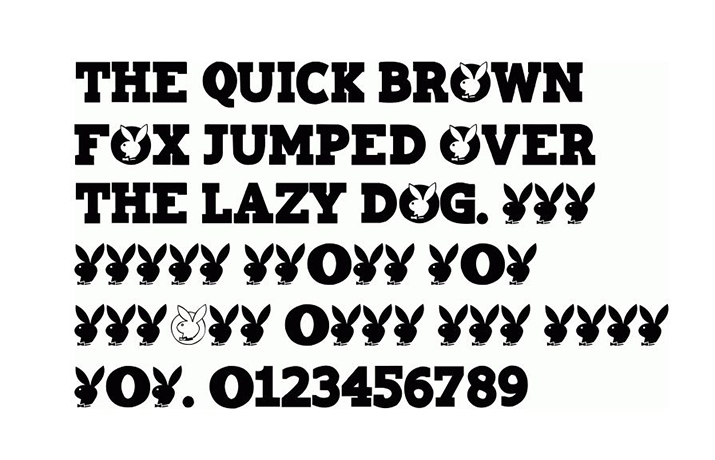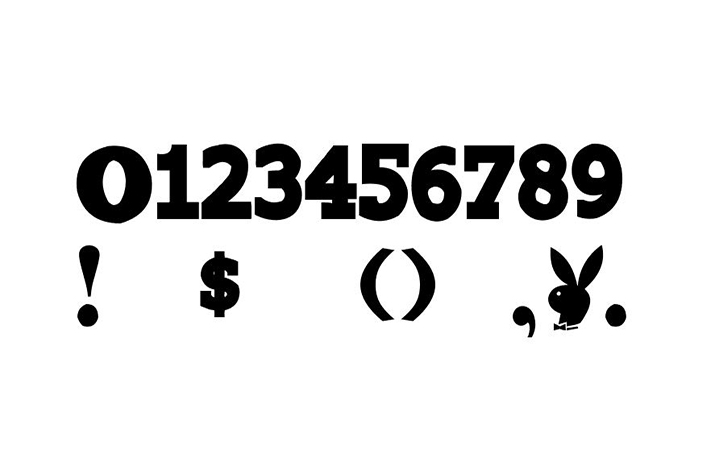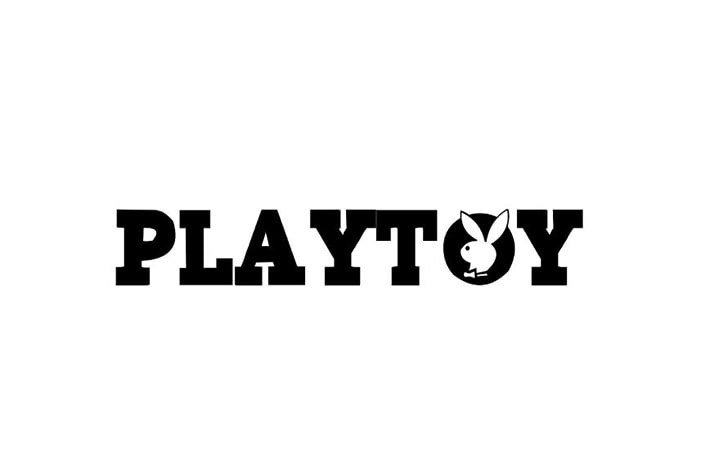
Playtoy Font looks great with some applied texture. It’s awesome for a camp-themed aesthetic, but imagine this one on packaging for child products, and more.
This display font is made by Sharkshock that is a small US-based foundry specializing in display fonts used around the world.
The designer made it with bold weights, large serifs, high stem contrast as well as a serif with gradual terminals.
This is why it offers a contemporary look with black density. In this way, it becomes a better choice for big projects and long texts.
| Style: | Slab Serif, Display, Playful |
This will be fit for logo designs, book covers, banners, flyers, child elements, product packaging, official cards, stylish cards, unique emblems, movie posters, game titlings, game development, etc.